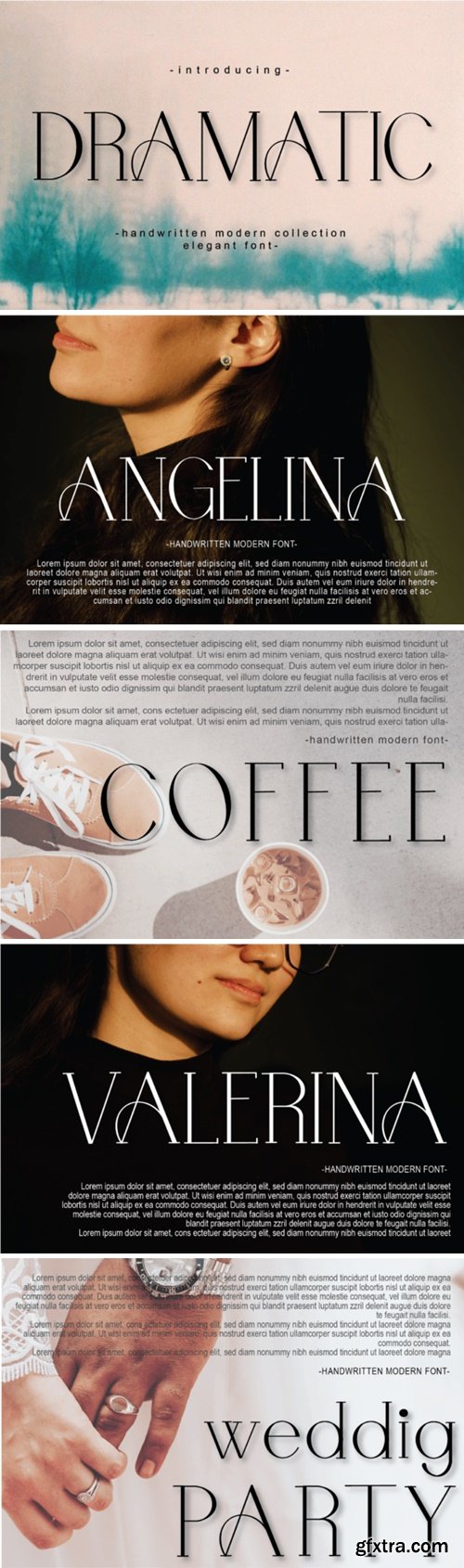
Dramatic is a stylish and cool serif font that looks both modern and futuristic. Add this font to your creative ideas, and see how your project comes to life.